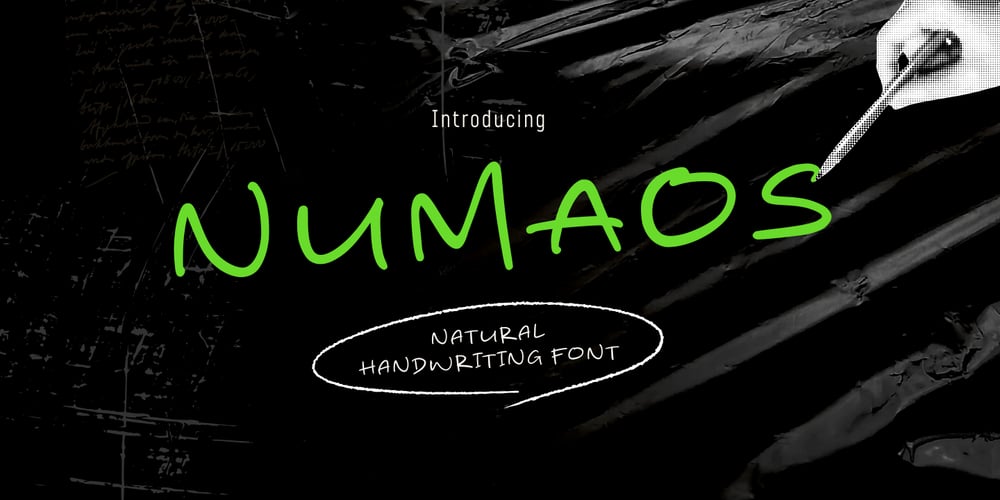
Numaos Font Family was designed by Muhamad Yusron Billah and published by Sronstudio. Numaos contains 1 styles and family package options. Introducing “Numaos,” a beautifully crafted handwritten font that brings a personal and authentic touch to your designs. With its fluid strokes and natural charm, “Numaos” is perfect for a wide range of projects, including invitations, greeting cards, branding, and social media graphics. This font adds a warm, intimate feel to your work, making each piece unique and memorable. Embrace the elegance and individuality of “Numaos” to elevate your creative projects.Features:- Ligatures- Numeral & Punctuation- PUA Encoded- Multilingual support- Simple Installation- Work both on Mac and WindowsThank you very much ๐